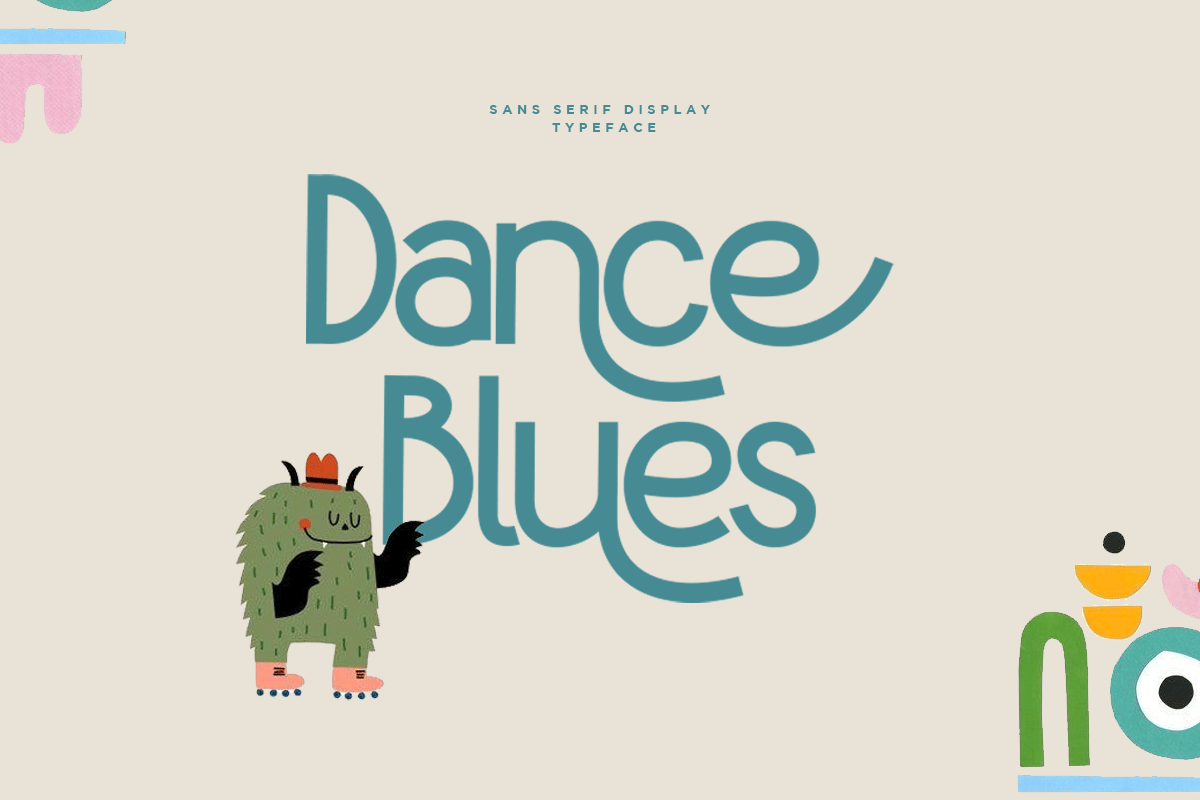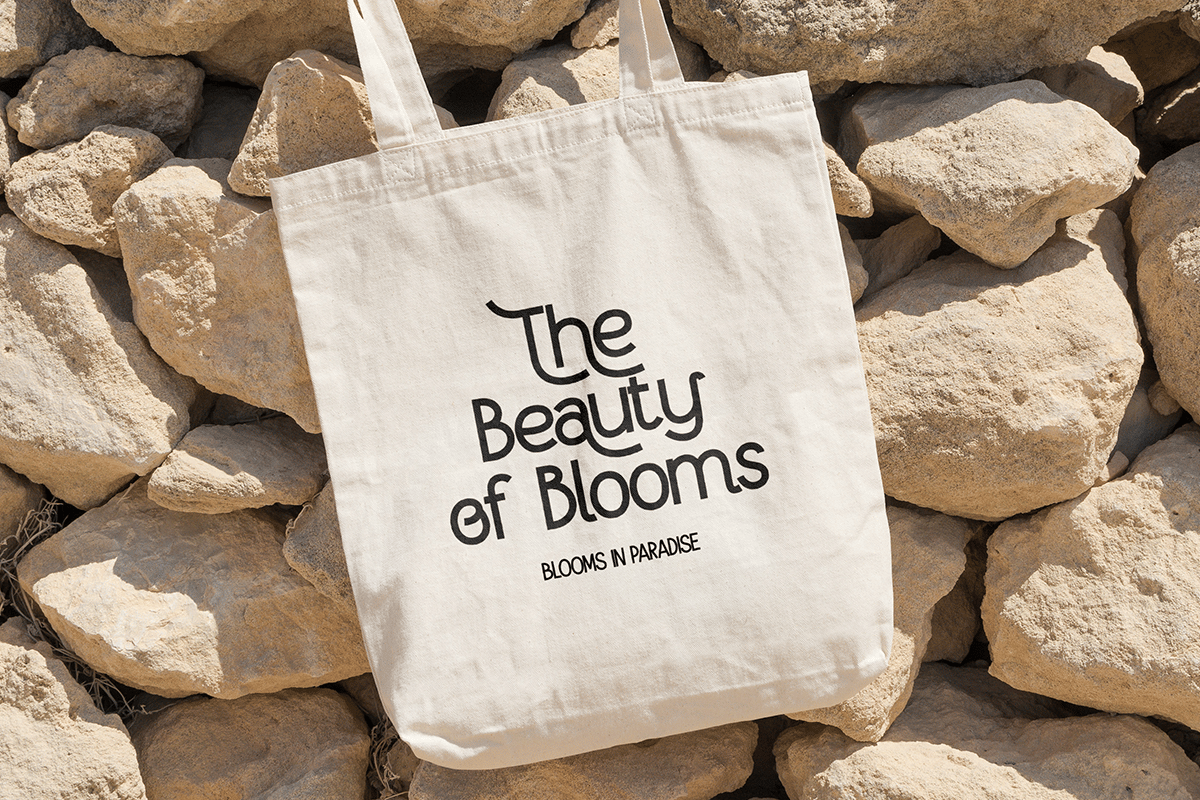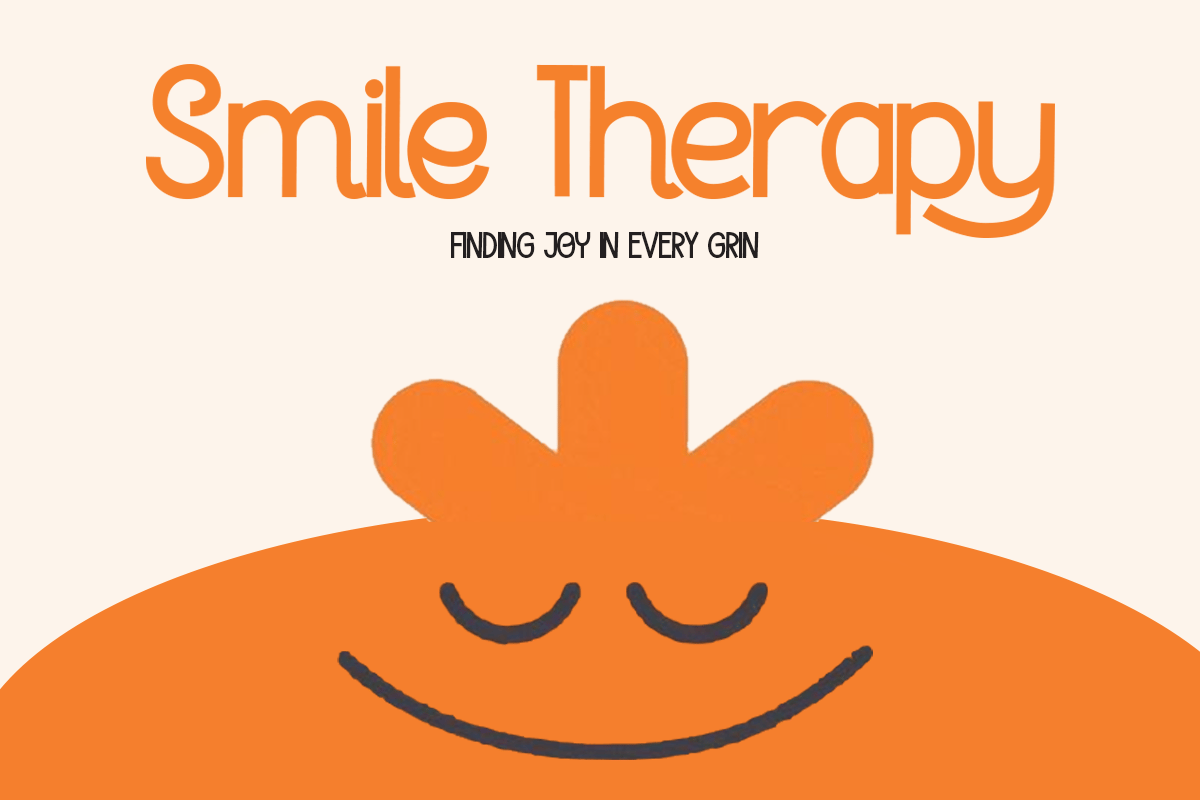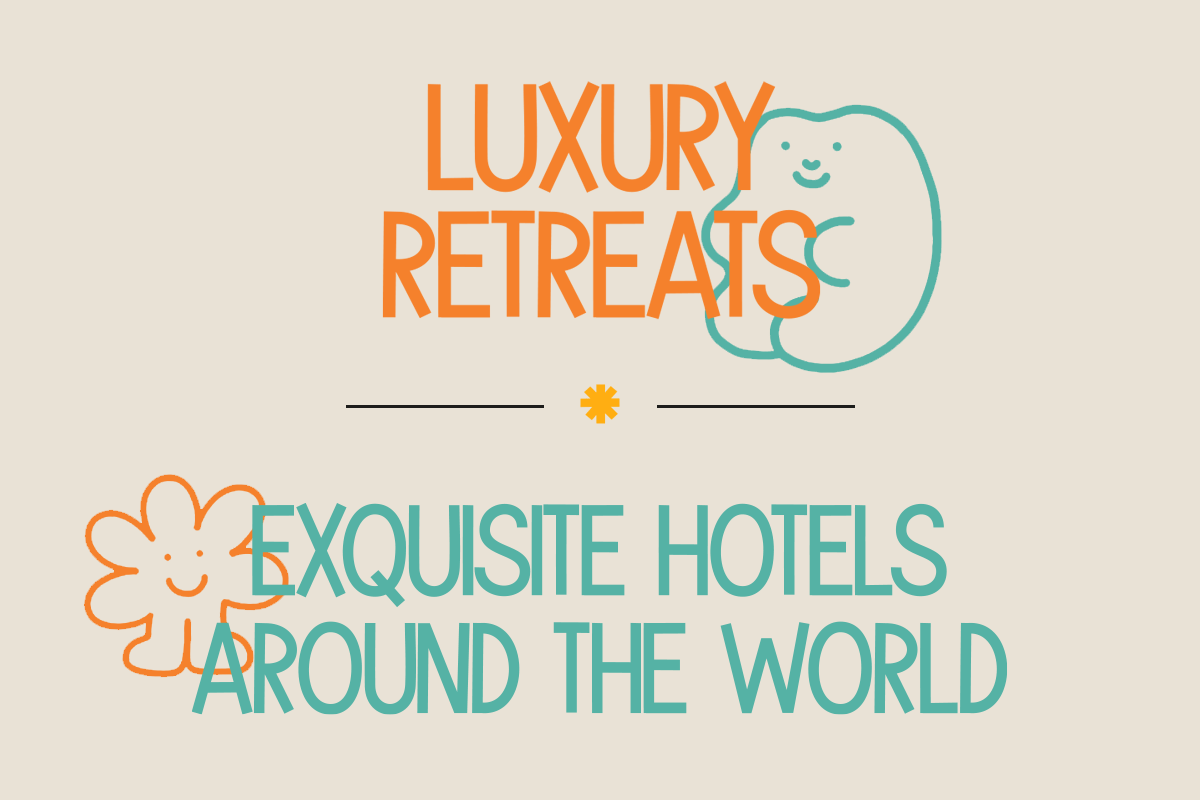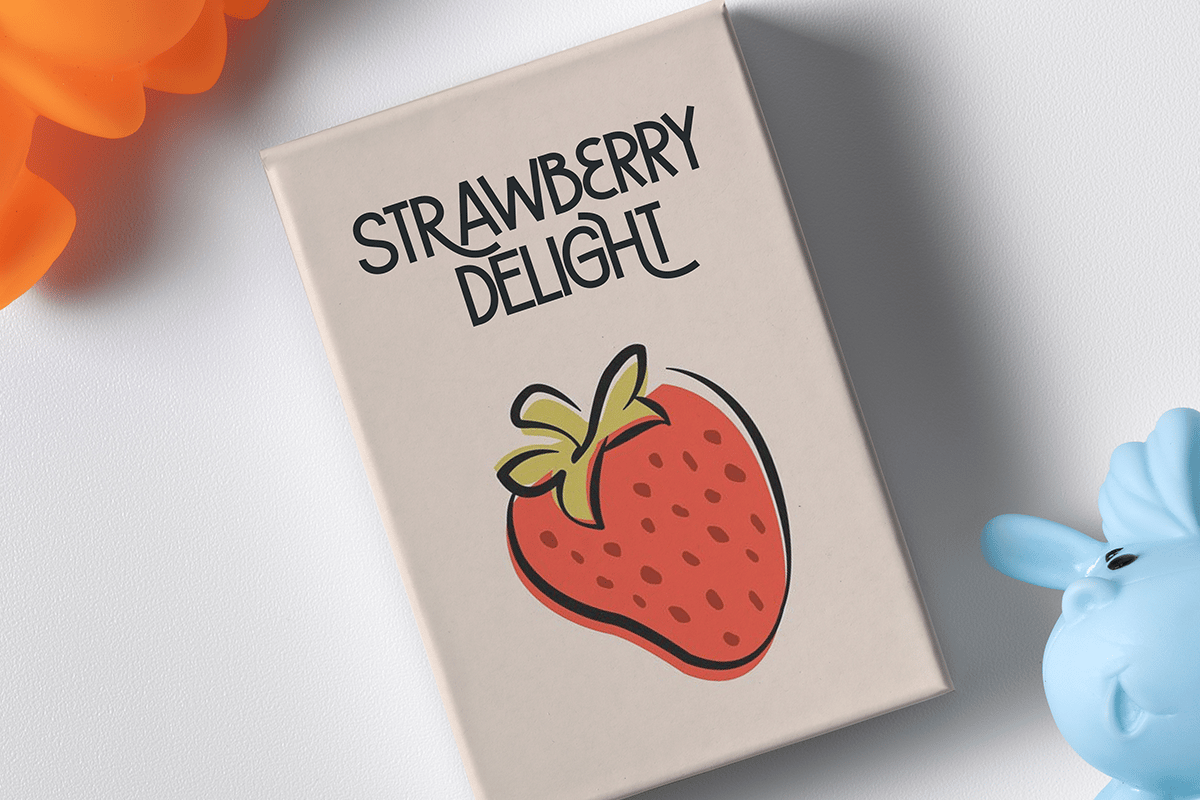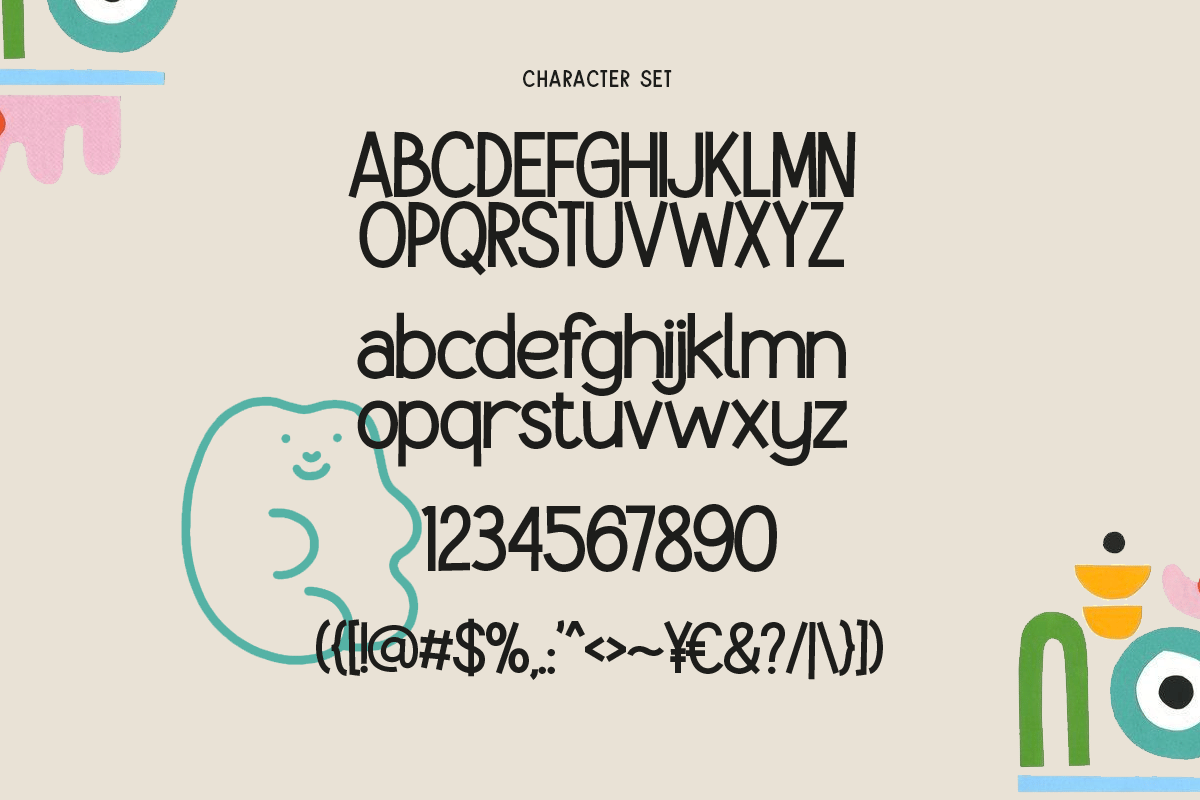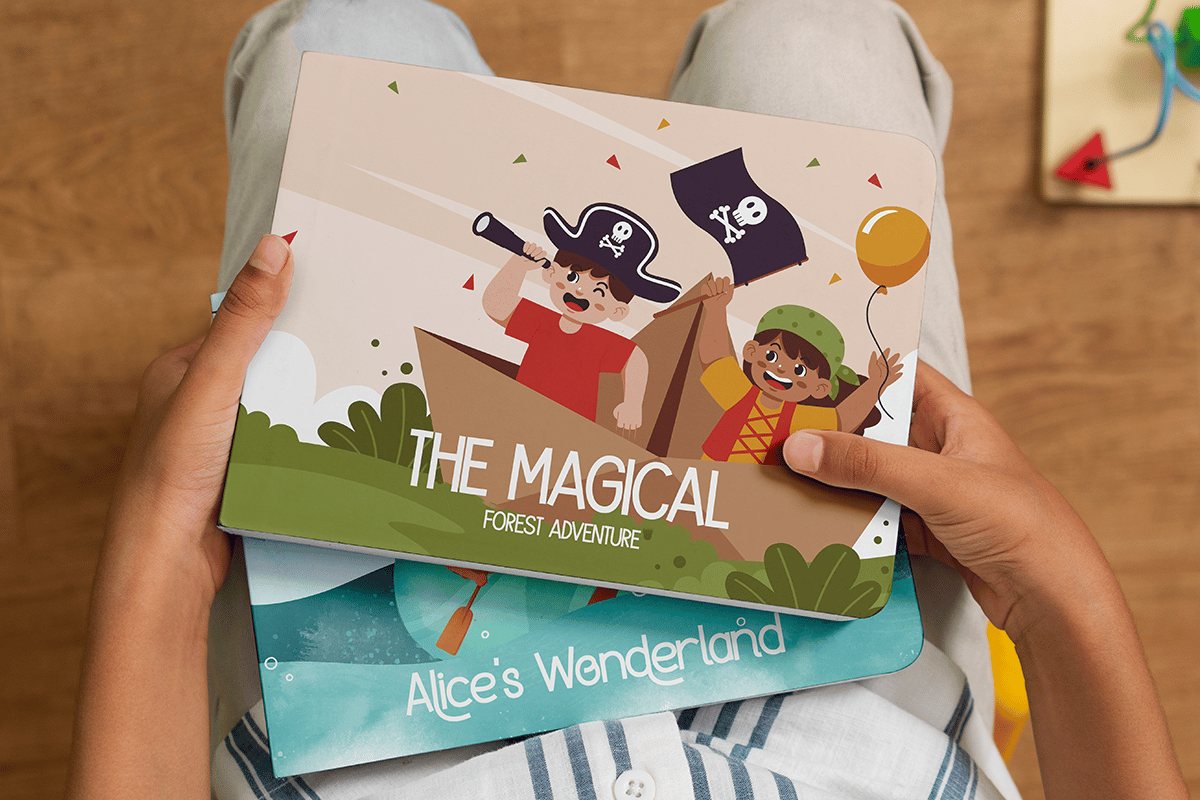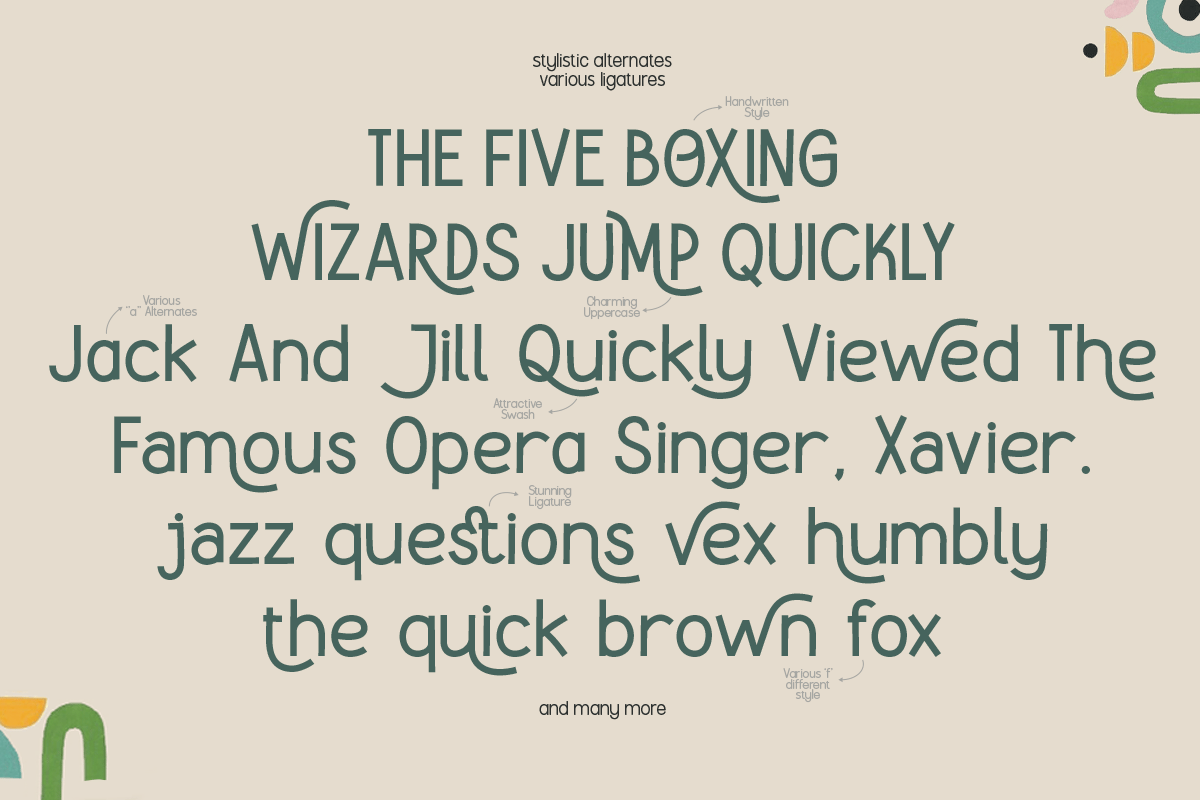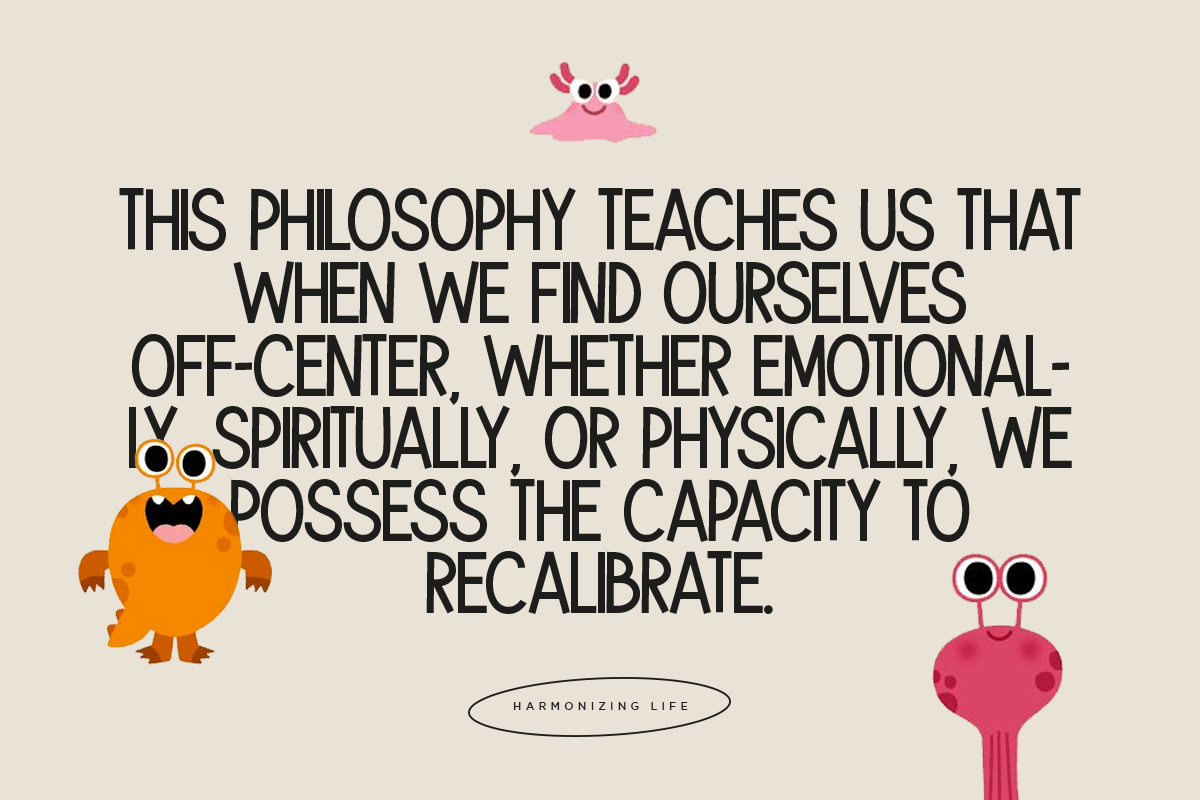
Dance Blues – Playful Font
Introducing Dance Blues playful font, a funniest and unique font. It has a unique and different style will give your design a fun touch.
Dance Blues font would be perfect for logos, branding, photography, watermark, social media posts, advertisements, invitation, product design, label, stationary, wedding design, book cover, special events or anything that need handwriting taste.
Dance Blues Features:
- Uppercase And Lowercase
- Alternates And Ligatures
- Accented characters